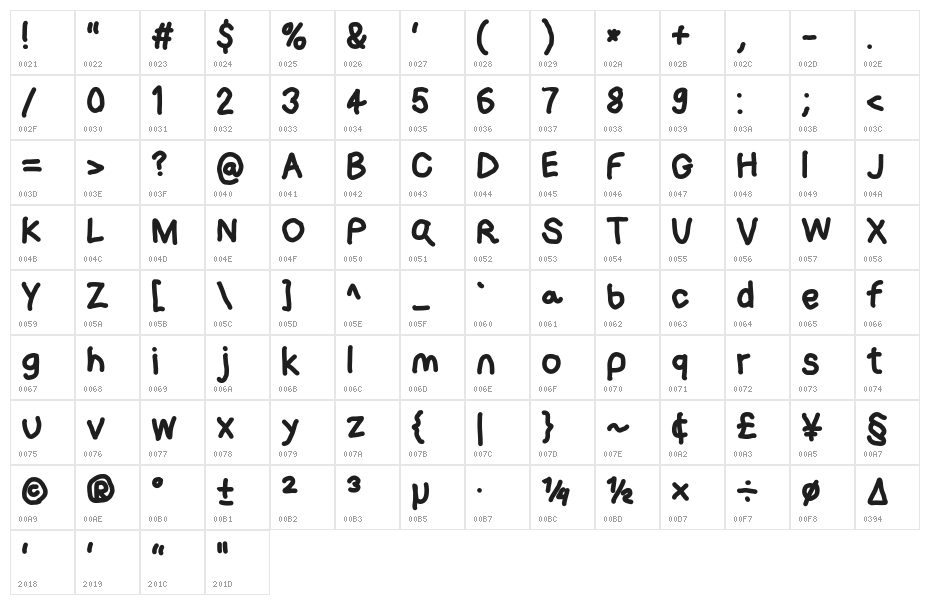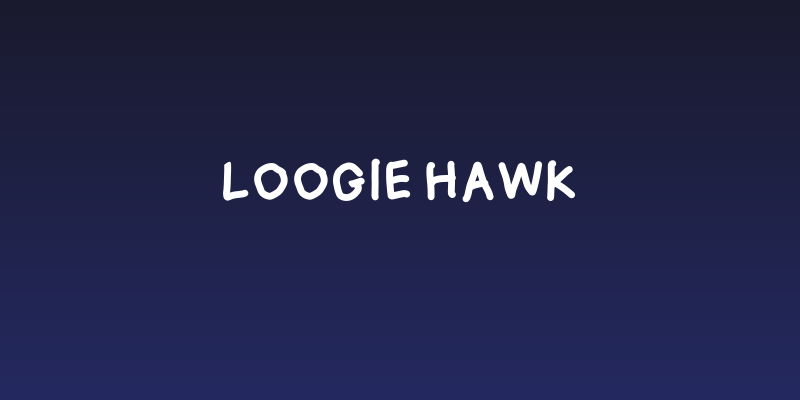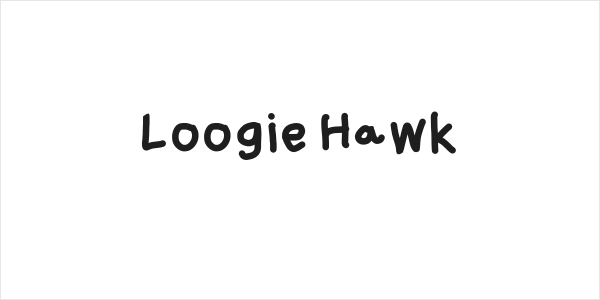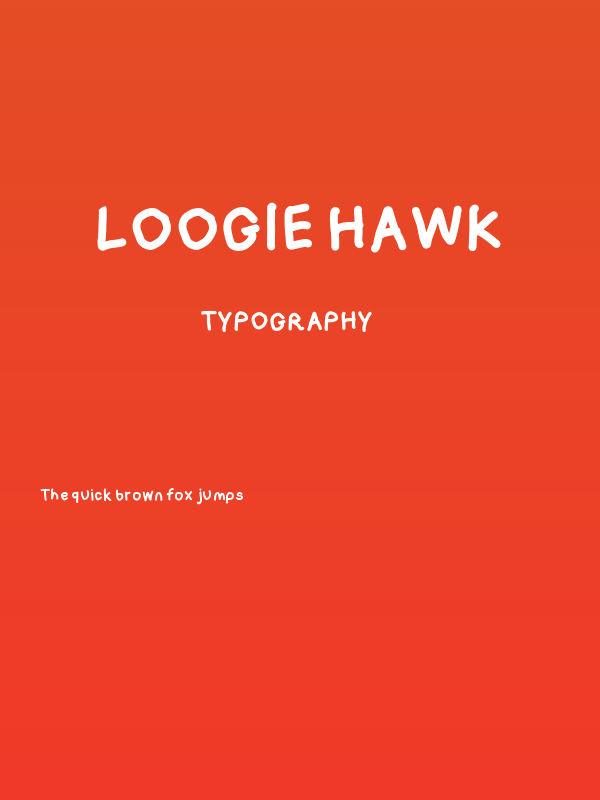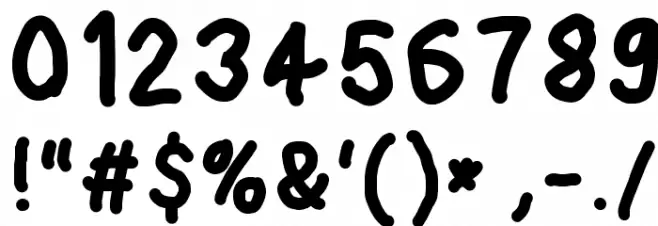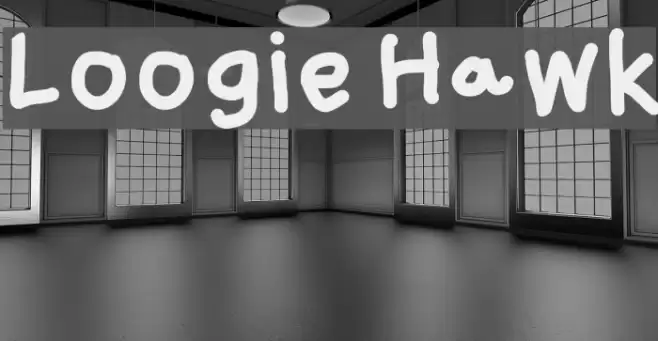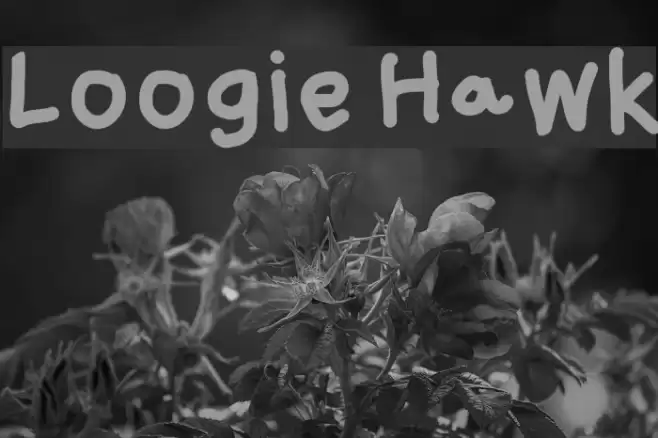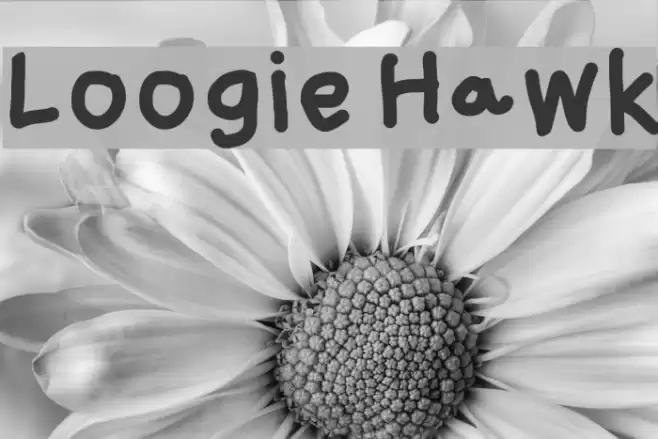
Loogie Hawk Font
Loogie Hawk Description
This playful and bold font features a handwritten style with rounded edges and a casual, friendly appearance. The characters are slightly irregular, adding a whimsical touch that makes it stand out. The uppercase and lowercase letters maintain a consistent style, with a slightly exaggerated thickness that gives the font a strong presence. The numerals and special characters are designed to match the overall aesthetic, ensuring a cohesive look across all text. This font is perfect for projects that require a fun and approachable feel, such as children's books, informal invitations, or playful branding.
| Overall Style | Playful, Casual |
| Proposed Projects | Ideal for children's books, informal invitations, playful branding, and creative posters. |